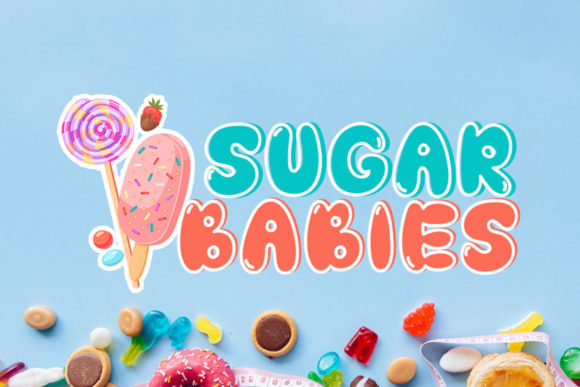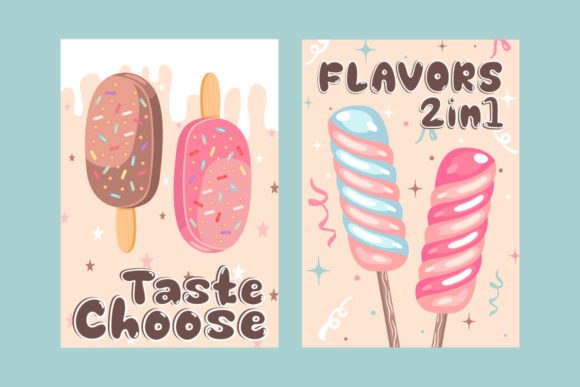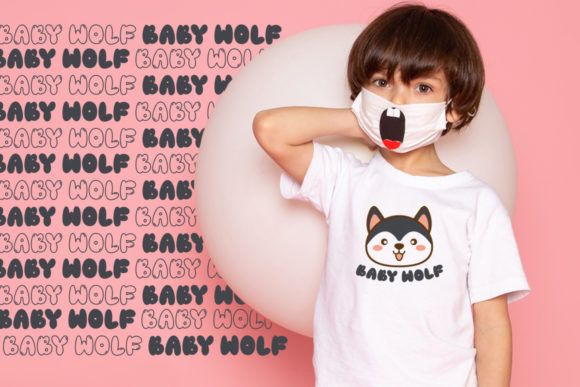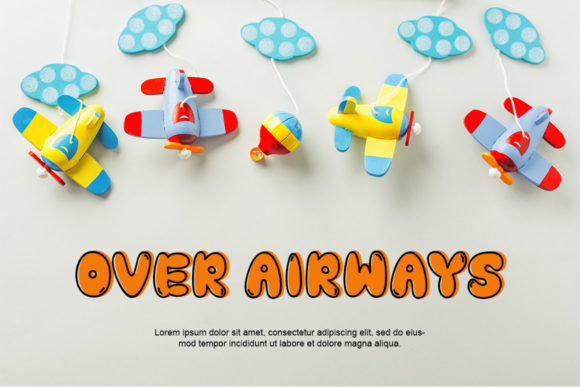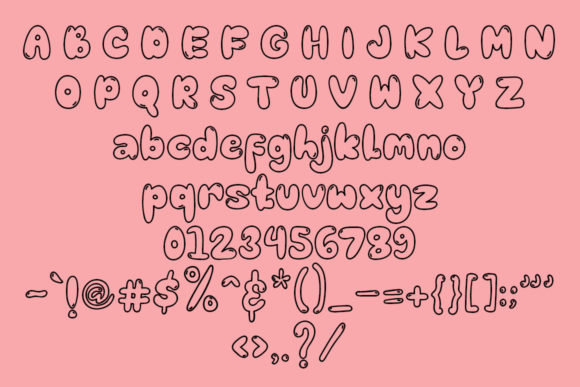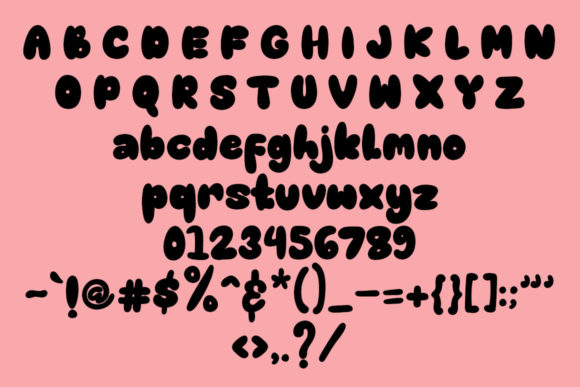
Introducing Dalion Font: The Cool, Friendly, and Bubbly Display Font
Are you tired of using the same old fonts for your digital designs, crafts, and presentations? Look no further! Dalion Font is here to shake things up with its cool, friendly, and bubbly personality. This versatile display font is perfect for a wide range of projects, from greeting cards to digital designs, and is sure to become your new go-to font.
What Makes Dalion Font So Special?
Dalion Font is a unique and refreshing addition to any design project. Its playful and bubbly nature makes it perfect for crafts, digital design, presentations, and even making greeting cards. The font’s friendly and approachable vibe is sure to capture the attention of your audience and leave a lasting impression.
Key Features of Dalion Font
- Cool and Friendly Design: Dalion Font boasts a modern and trendy design that’s perfect for designers and crafters looking to add a touch of personality to their projects.
- Bubbly and Playful: The font’s bubbly and playful nature makes it ideal for projects that require a bit of whimsy and fun.
- Versatile: Dalion Font can be used for a wide range of projects, from digital designs and presentations to crafts and greeting cards.
- Easy to Read: Despite its playful nature, Dalion Font is easy to read and understand, making it perfect for use in body text or headings.
Uses for Dalion Font
Dalion Font is a versatile font that can be used for a wide range of projects, including:
- Digital Design: Use Dalion Font to add a touch of personality to your digital designs, such as social media graphics, blog posts, and website headers.
- Crafts: Dalion Font is perfect for crafters who want to add a personal touch to their projects, such as scrapbooking, card making, and DIY signs.
- Presentations: Use Dalion Font to add some visual interest to your presentations and make them more engaging for your audience.
- Greeting Cards: Dalion Font is perfect for creating personalized and unique greeting cards for special occasions.
Why Designers and Crafters Love Dalion Font
Designers and crafters love Dalion Font for its unique and refreshing design. The font’s playful and bubbly nature makes it perfect for projects that require a bit of personality and whimsy. Additionally, Dalion Font is easy to use and can be paired with a wide range of other fonts to create a unique and cohesive look.
Tips for Using Dalion Font
Here are a few tips for using Dalion Font in your projects:
- Pair it with Other Fonts: Dalion Font can be paired with a wide range of other fonts to create a unique and cohesive look. Try pairing it with a serif font for a classic look or a script font for a more elegant feel.
- Use it for Headings: Dalion Font is perfect for use in headings and titles. Its playful and bubbly nature makes it perfect for grabbing the attention of your audience.
- Experiment with Colors: Dalion Font looks great in a wide range of colors. Experiment with different colors to find the perfect one for your project.
Dalion Font is a cool, friendly, and bubbly display font that’s perfect for designers and crafters looking to add a touch of personality to their projects. Its versatile design makes it suitable for a wide range of projects, from digital designs and presentations to crafts and greeting cards. With its easy-to-read design and playful nature, Dalion Font is sure to become your new go-to font.